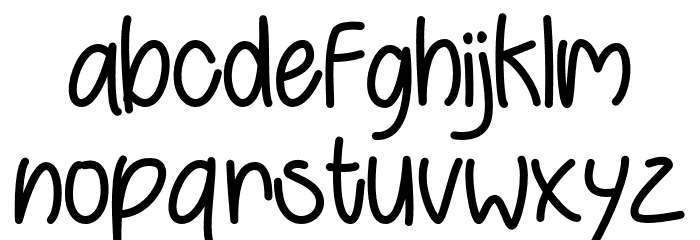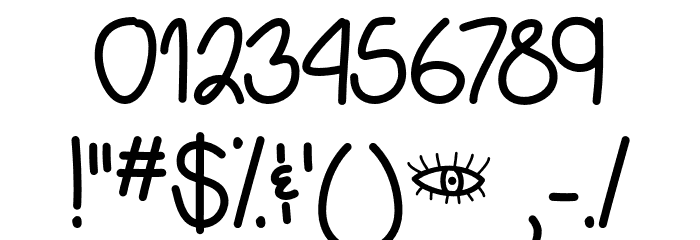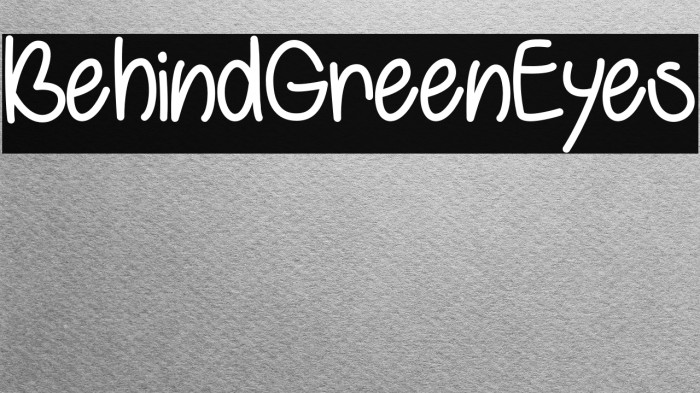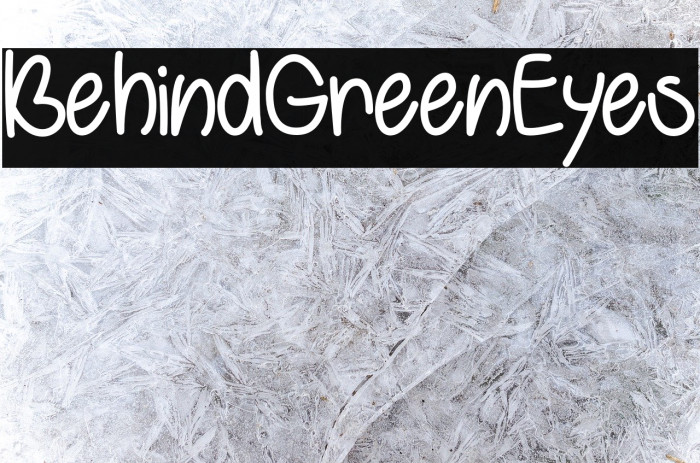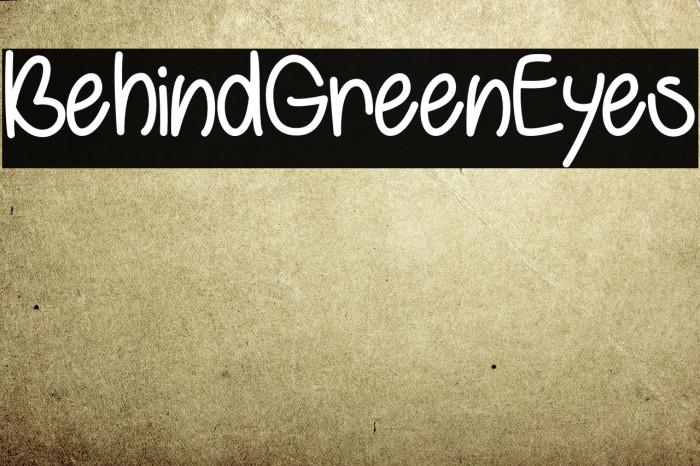
BehindGreenEyes Font
This playful and whimsical font features a handwritten style with smooth, rounded edges and a casual flair. The characters are slightly slanted, giving it a dynamic and lively appearance. The uppercase and lowercase letters maintain a consistent flow, while the numbers and special characters complement the overall aesthetic. The font's informal and friendly vibe makes it suitable for creative and fun projects. Its legibility and unique style make it stand out, adding a personal touch to any design.
A playful, handwritten font with smooth, rounded edges and a casual flair.
- Proposed Projects: Ideal for greeting cards, children's books, playful branding, and social media graphics.
- Category: Handwritten
- Overall Style: Casual and playful
- Use Case: Headlines, Logos, Informal text